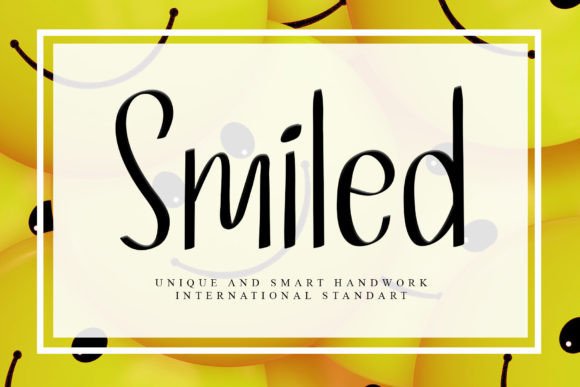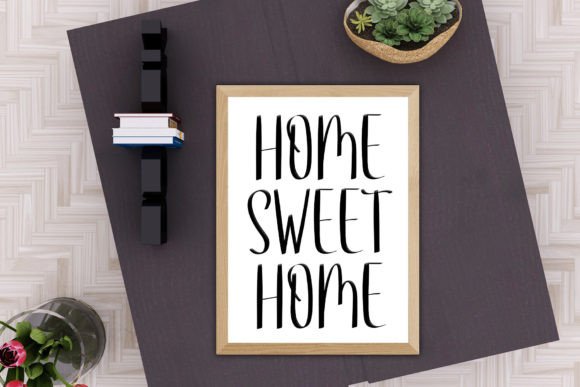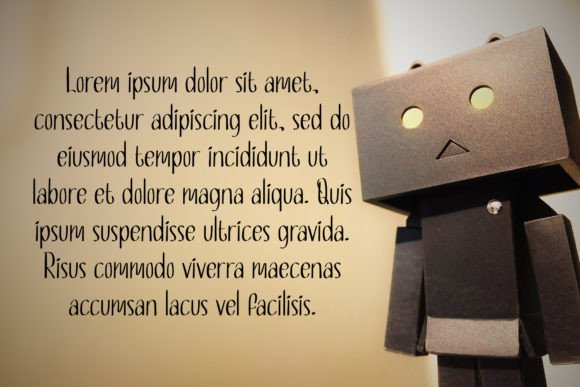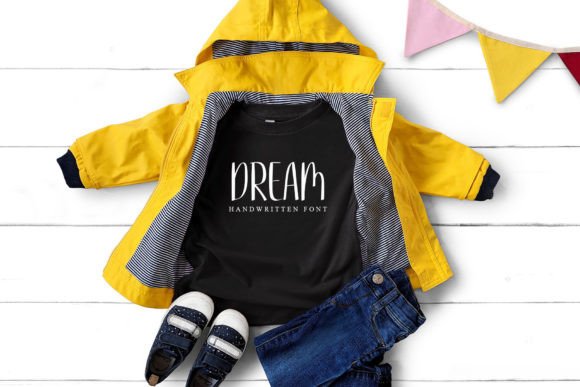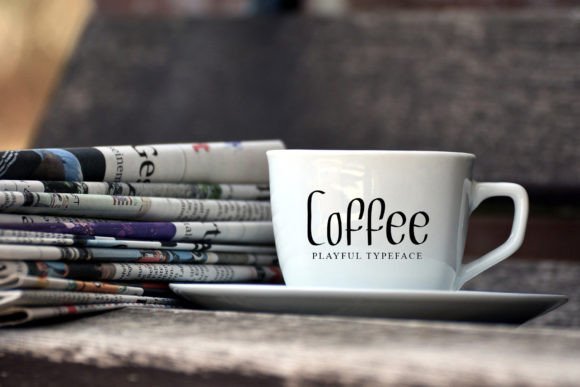
Smiled Font
Add Style and Personality with Smiled Handwritten Font
The Smiled Handwritten Font is an elegant and unique script that enhances your designs with a refined personal touch. Crafted to feel both stylish and organic, Smiled is ideal for creatives who want to add warmth and sophistication to their visual projects.
Its hand-drawn style makes it suitable for a wide range of uses—from formal to fun—making Smiled a dependable choice for all your design needs.
Perfect for Invitations, Cards, Logos, and More
Smiled shines in many design settings. It’s especially perfect for wedding invitations, event announcements, and greeting cards, where a personalized and heartfelt tone is essential. Its graceful curves and clean strokes bring charm and elegance to every word.
Beyond personal projects, Smiled Font is also ideal for business branding. Use it on logos, billboards, business cards, and product packaging to create a brand identity that’s both distinctive and approachable.
A Handwritten Font with a Refined Twist
What makes Smiled stand out is its sophisticated handwritten look. Each letter is carefully designed to replicate natural penmanship, giving your text an intimate and handcrafted feel. Yet, it maintains balance and clarity—making it easy to read and visually pleasing.
This font works well in headlines, short quotes, and branding taglines. Whether your tone is romantic, elegant, or creative, Smiled can adapt effortlessly.
Designed for Both Print and Digital Use
Smiled performs beautifully across both print and digital platforms. In print, it’s perfect for stationery, menus, flyers, and personalized merchandise. Digitally, it looks stunning in social media graphics, blog banners, email headers, and online invitations.
For a polished layout, pair Smiled with a clean sans-serif or minimalist serif font. This helps balance the composition and lets Smiled be the visual highlight of your design.
Why Designers Love Smiled Handwritten Font
Here’s why Smiled is a favorite among designers:
• Elegant handwritten look with modern flair
• Highly legible at different sizes
• Ideal for both personal and business designs
• Versatile across various platforms and formats
Give Every Design a Personal Touch
In summary, the Smiled Handwritten Font is an excellent choice for designers who want to blend elegance and authenticity. From heartfelt wedding invitations to standout branding materials, Smiled brings a refined yet personal quality to your work.
If you’re looking for a handwritten script that combines beauty, style, and flexibility, Smiled is the perfect font to elevate your creative projects.